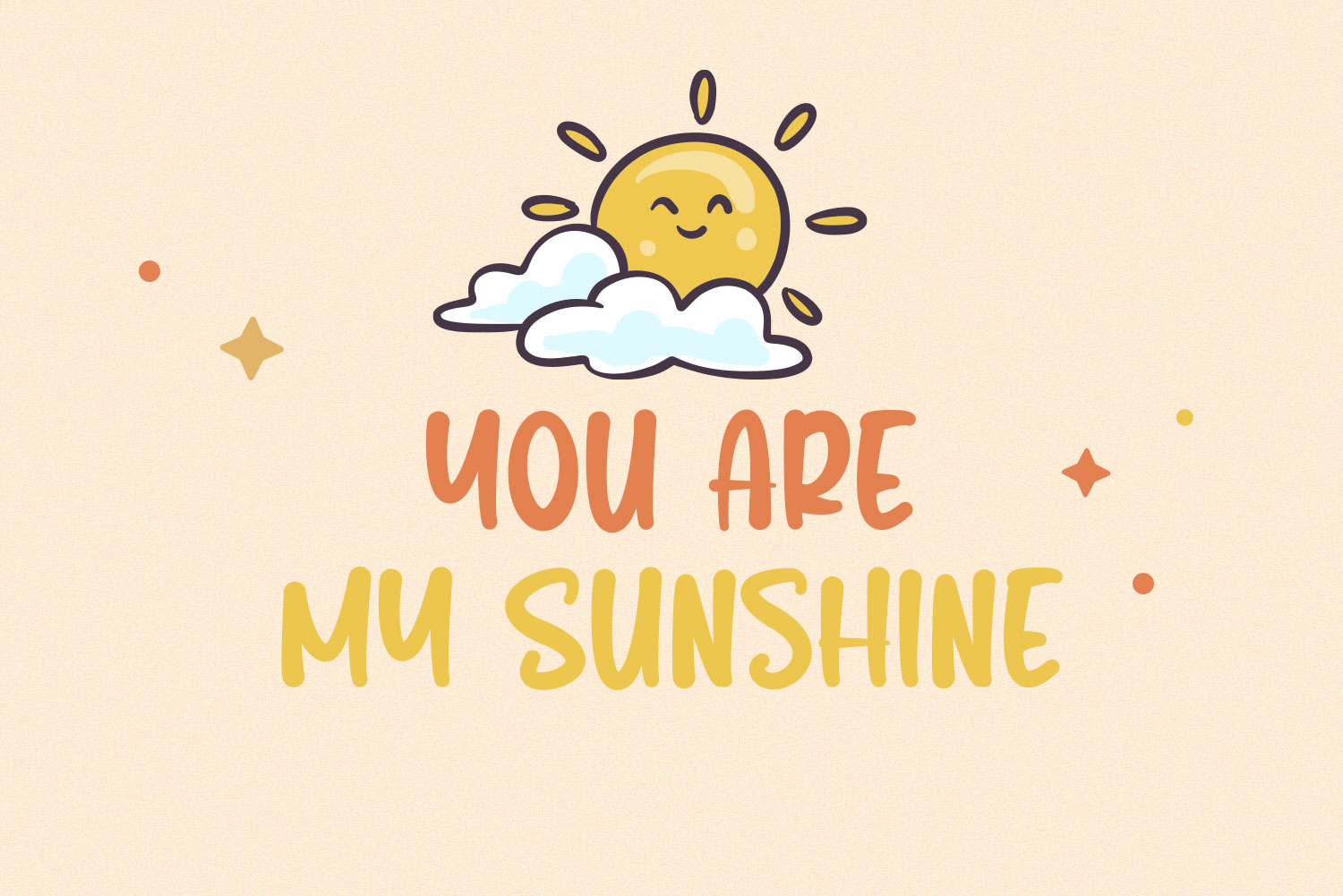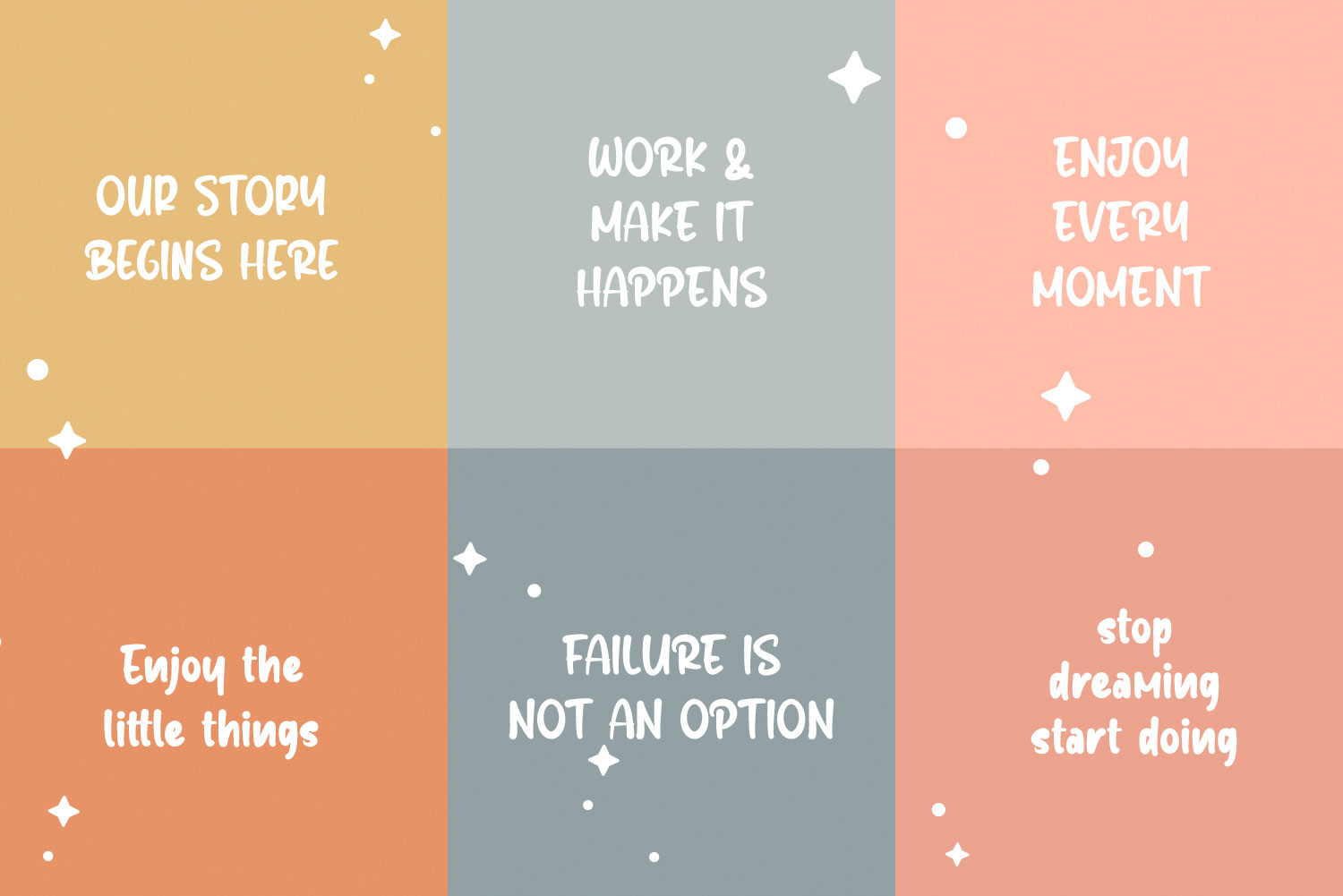
Oliver Kitchen A Playfull Font
Oliver Kitchen – playfull look, child and joyful. We also make more alternate for uppercase so you can make more option for you design. This font is also includee international accent character for multilinggual langguage.
This font suitableĀ  for logos, packaging designs, posters, business card, cover, broadcast, quotes, books, etc. Let’s we go, to make you business go to next level with Oliver Kitchen.